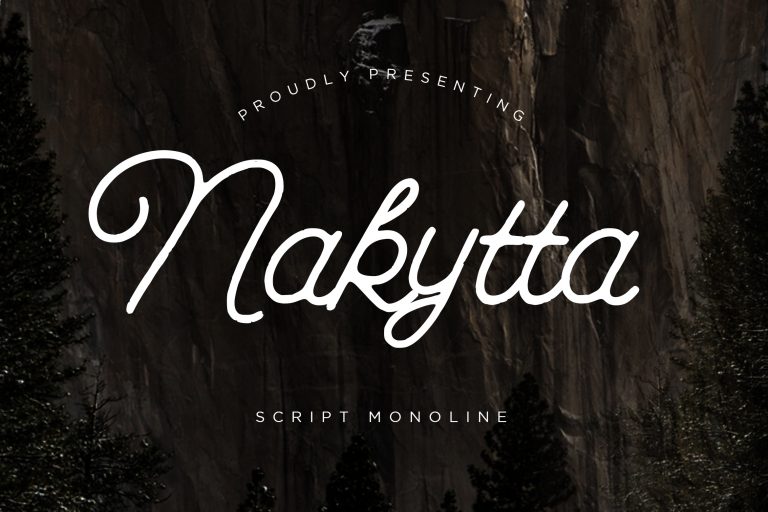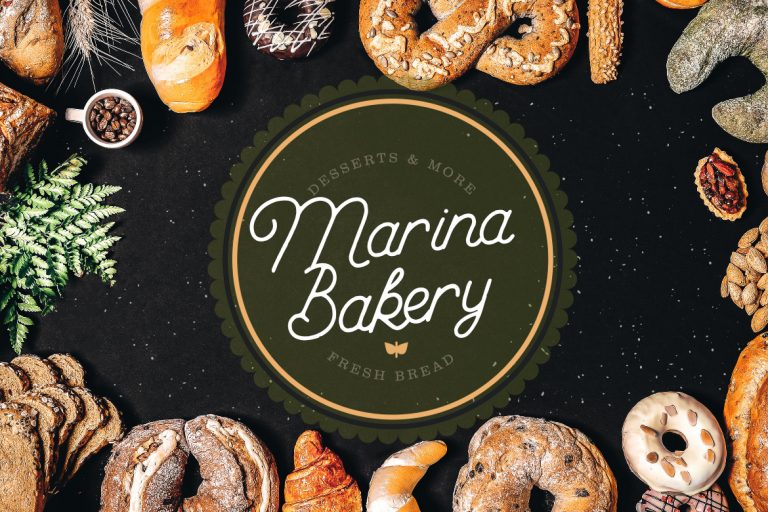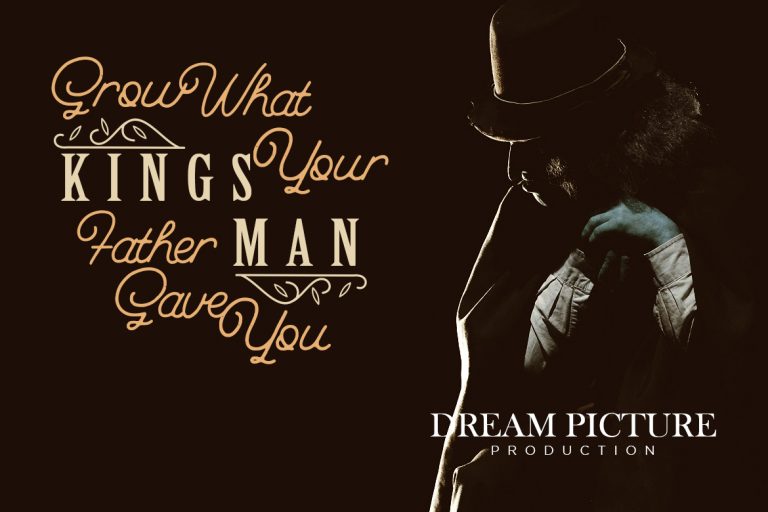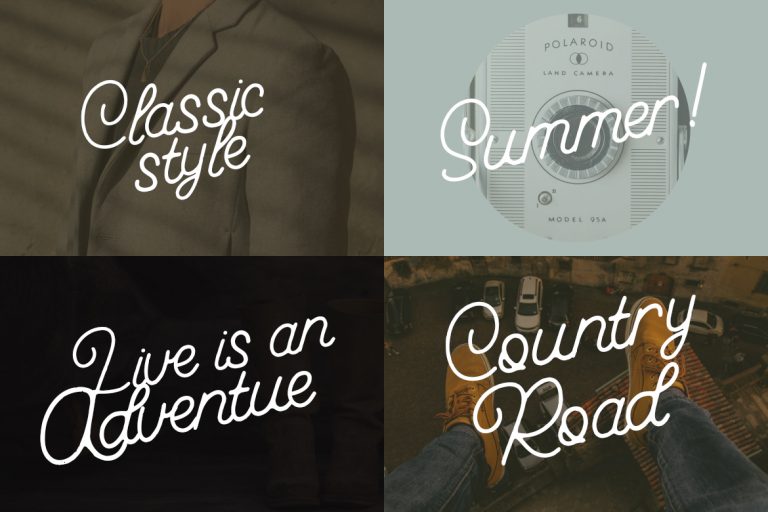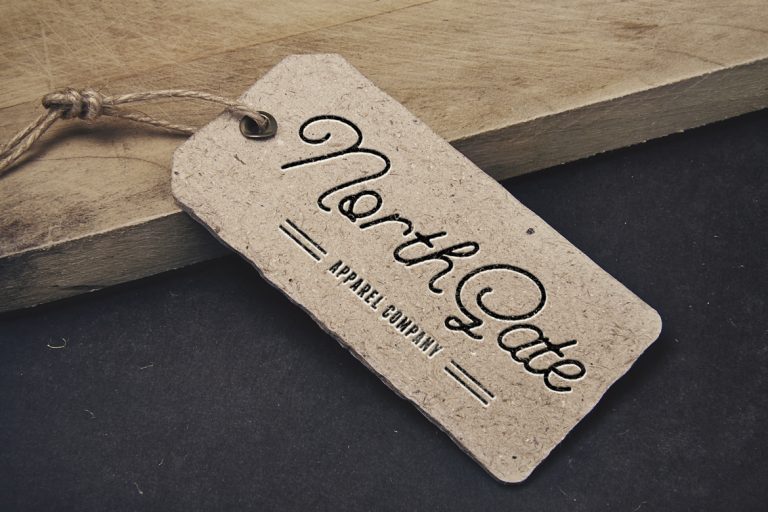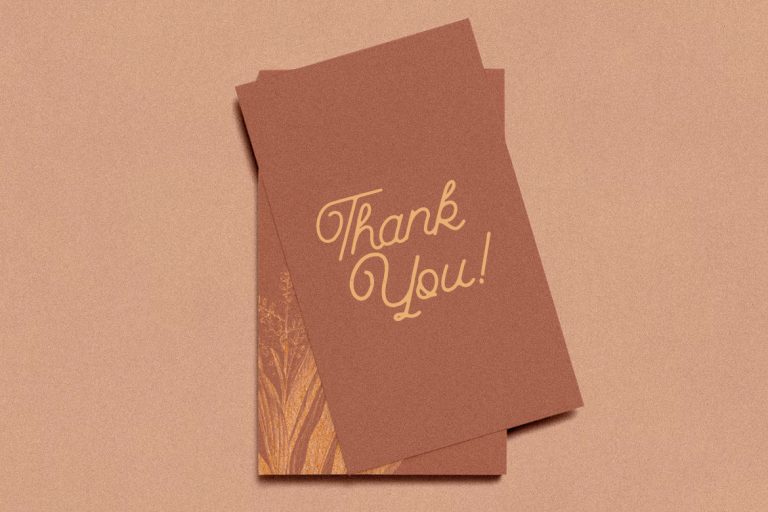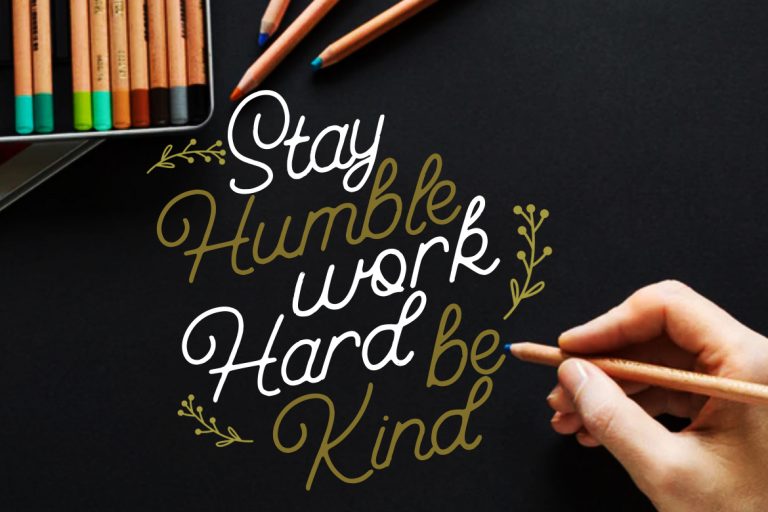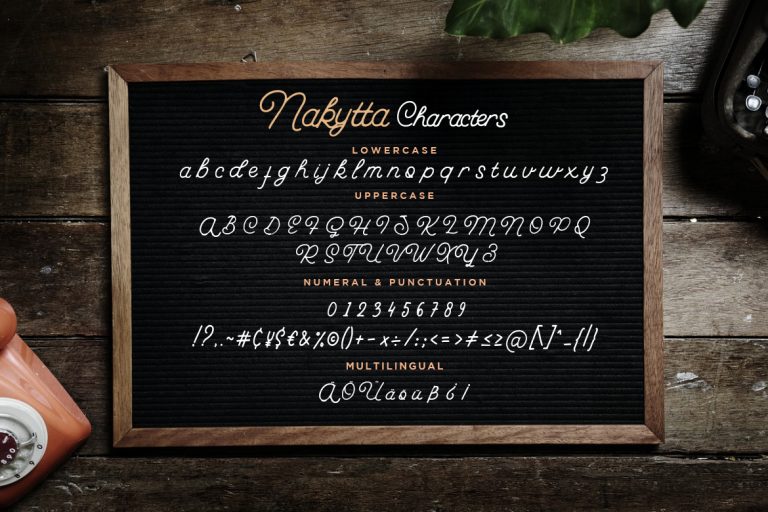
Nakytta is handwritten monoline script looks elegant and classy.
Nakytta is perfect for branding projects, logo, wedding designs, social media posts, advertisements, product packaging, product designs, label, photography, watermark, invitation, stationery and any projects that need handwriting taste.
- Fonts include multilingual support for; ä ö ü Ä Ö Ü ß ¿ ¡
Nakytta Monoline Script